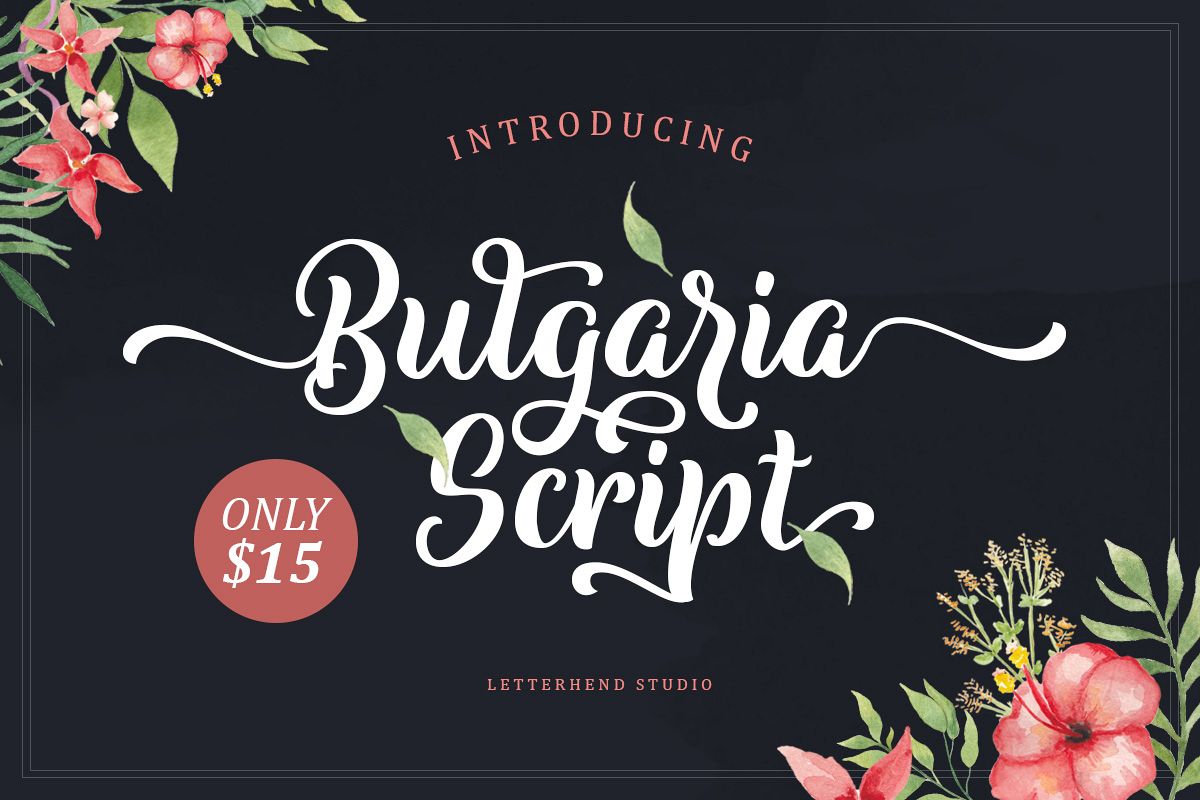
Bulgaria Script
Introducing, Bulgaria, a romantic modern script with a twist of fun! The natural hand writing script is suitable for you who needs a typeface for headline, logotype, apparel, invitation, branding, packaging, advertising etc. This typeface is comes in uppercase, lowercase, punctuations, symbols & numerals, stylistic set alternate, ligatures, etc also support multilingual. It also already PUA Encoded.